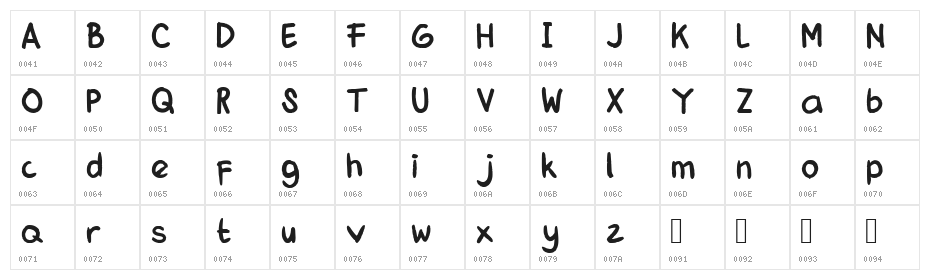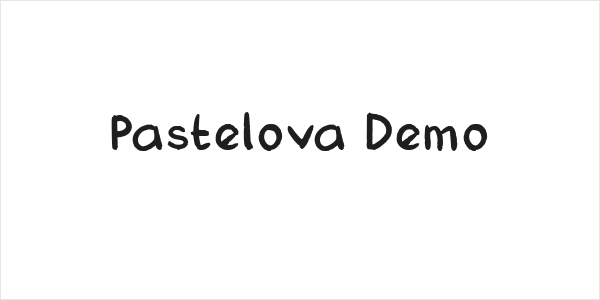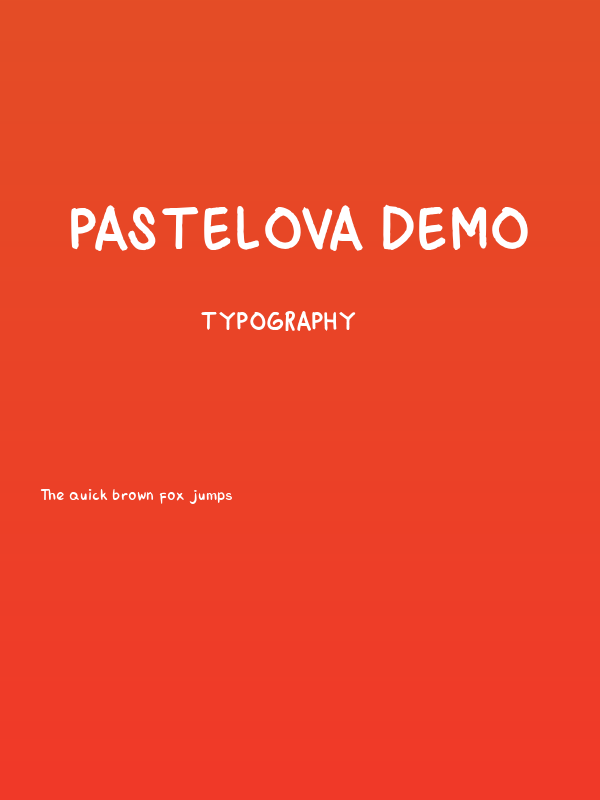
Pastelova Demo Font
Pastelova Demo Description
This font features a playful and informal style with a handwritten appearance. The characters are bold and rounded, giving a friendly and approachable feel. The strokes are consistent in thickness, contributing to a uniform look across all characters. The uppercase and lowercase letters maintain a cohesive style, with slight variations that add to the hand-drawn aesthetic. The numbers and special characters are designed to match the overall theme, ensuring visual harmony. This font is versatile, suitable for projects that require a personal touch or a casual vibe.
| Proposed Projects | Ideal for children's books, greeting cards, casual branding, and social media graphics. |